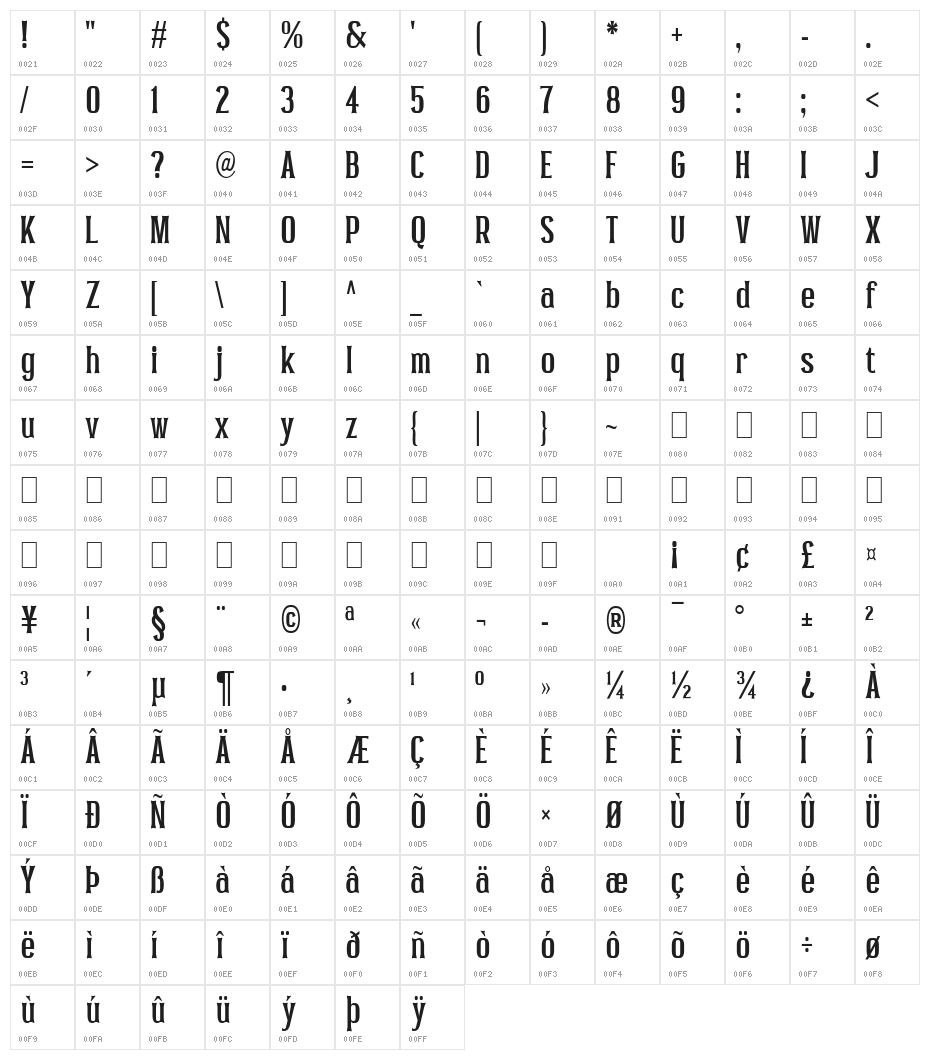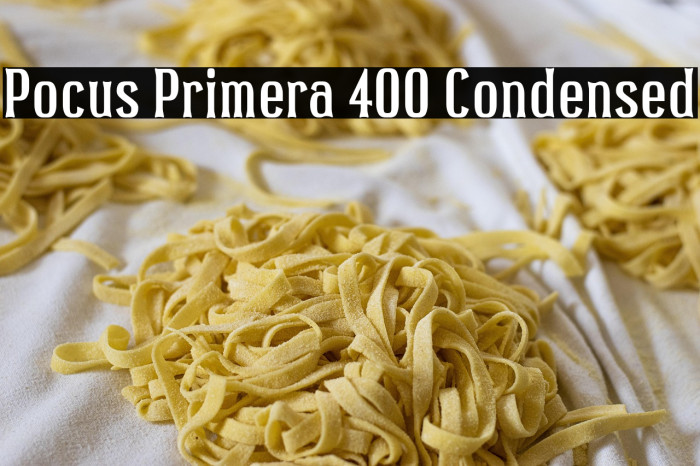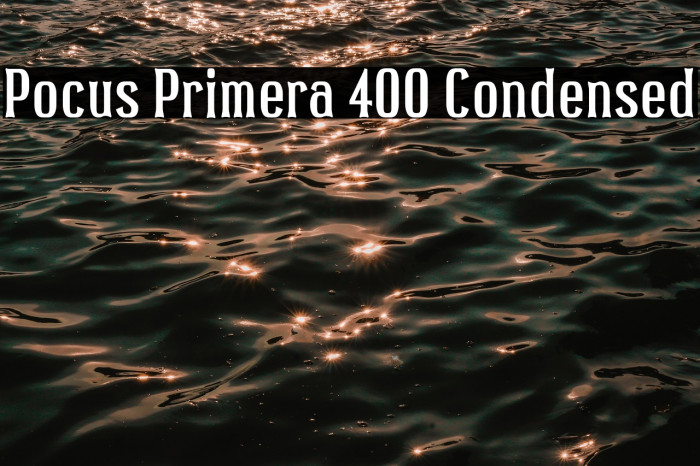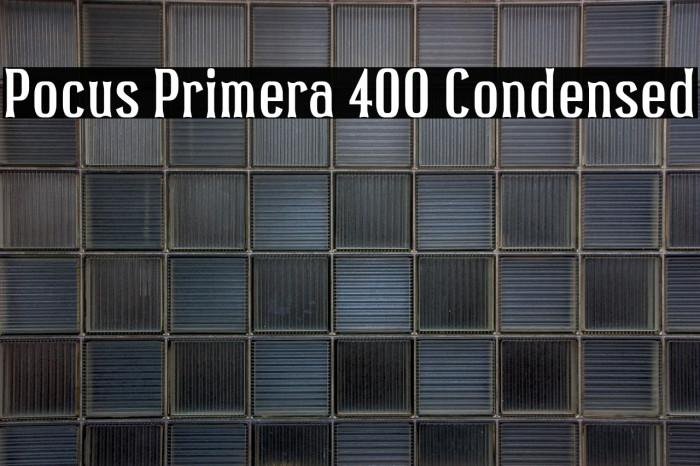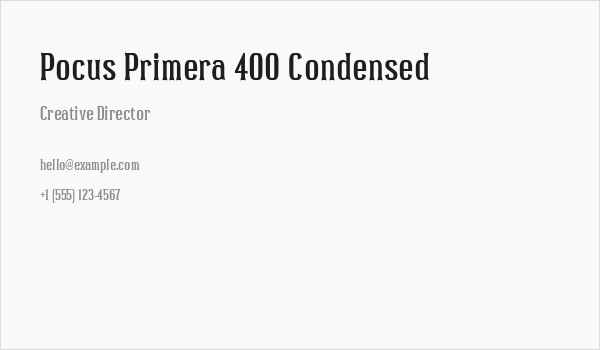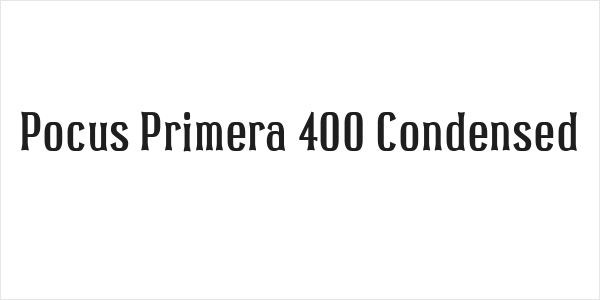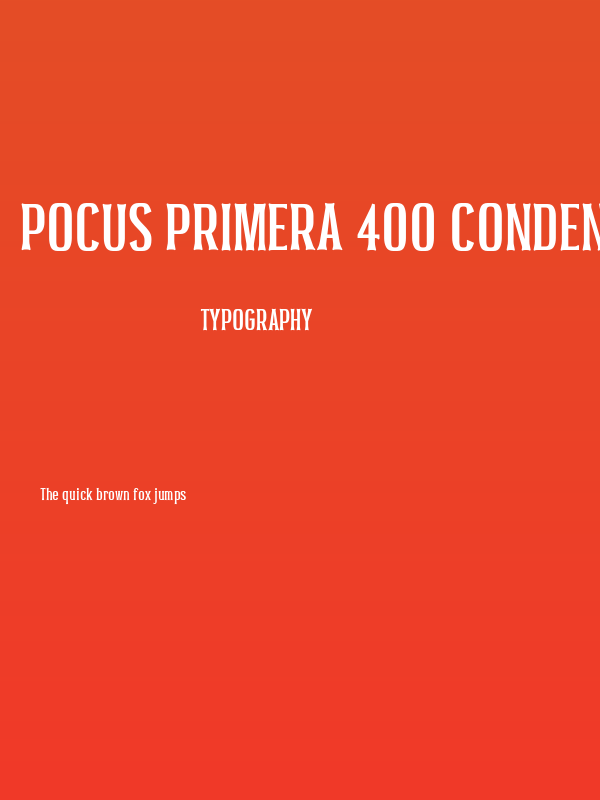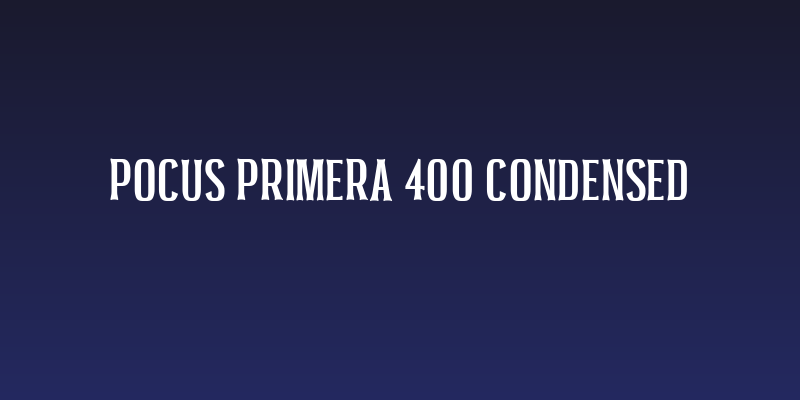
Pocus Primera 400 Condensed Font
Pocus Primera 400 Condensed Description
This font features a bold and condensed style with a strong presence. The uppercase letters are tall and narrow, giving a sense of authority and impact. The lowercase letters maintain the condensed style, ensuring consistency throughout the typeface. Numbers are equally bold and clear, making them suitable for attention-grabbing displays. Special characters are designed with the same boldness, ensuring they stand out. The overall design is modern with a hint of vintage flair, making it versatile for various applications.
| Overall Style | Modern, Vintage |
| Proposed Projects | Ideal for posters, headlines, branding, and any project requiring a strong visual impact. |